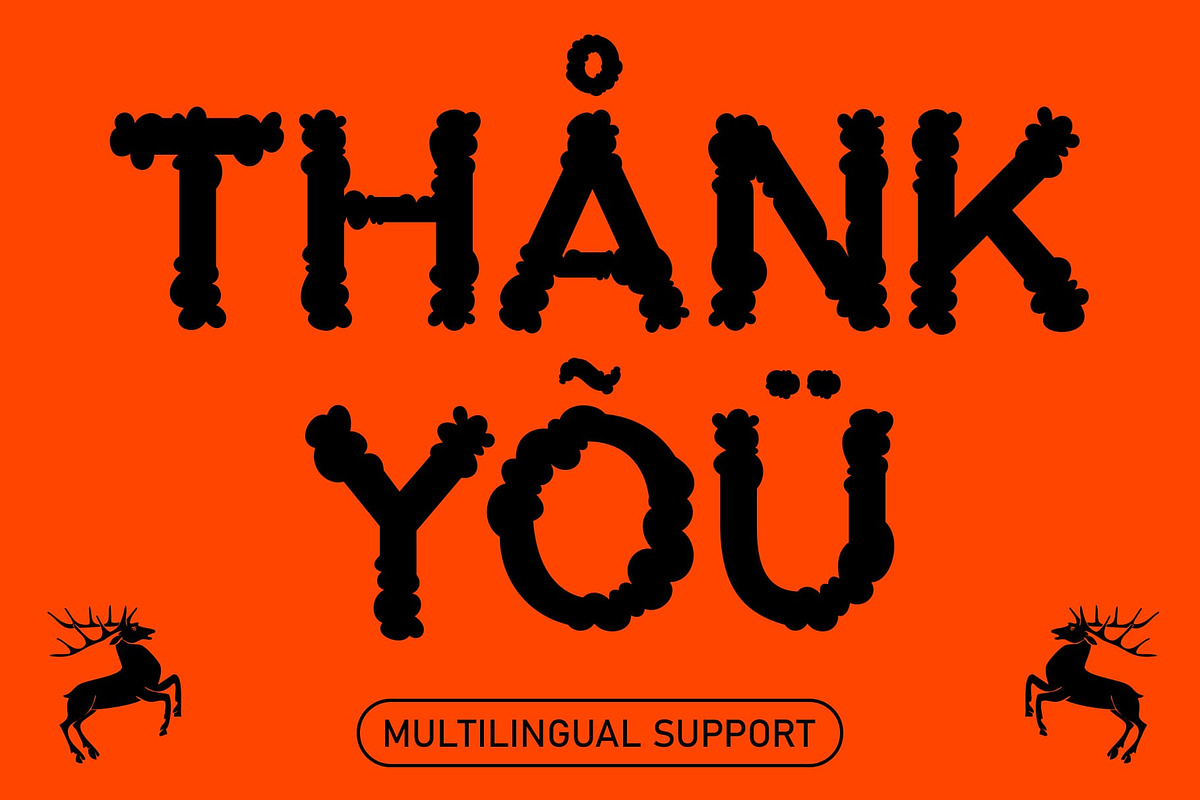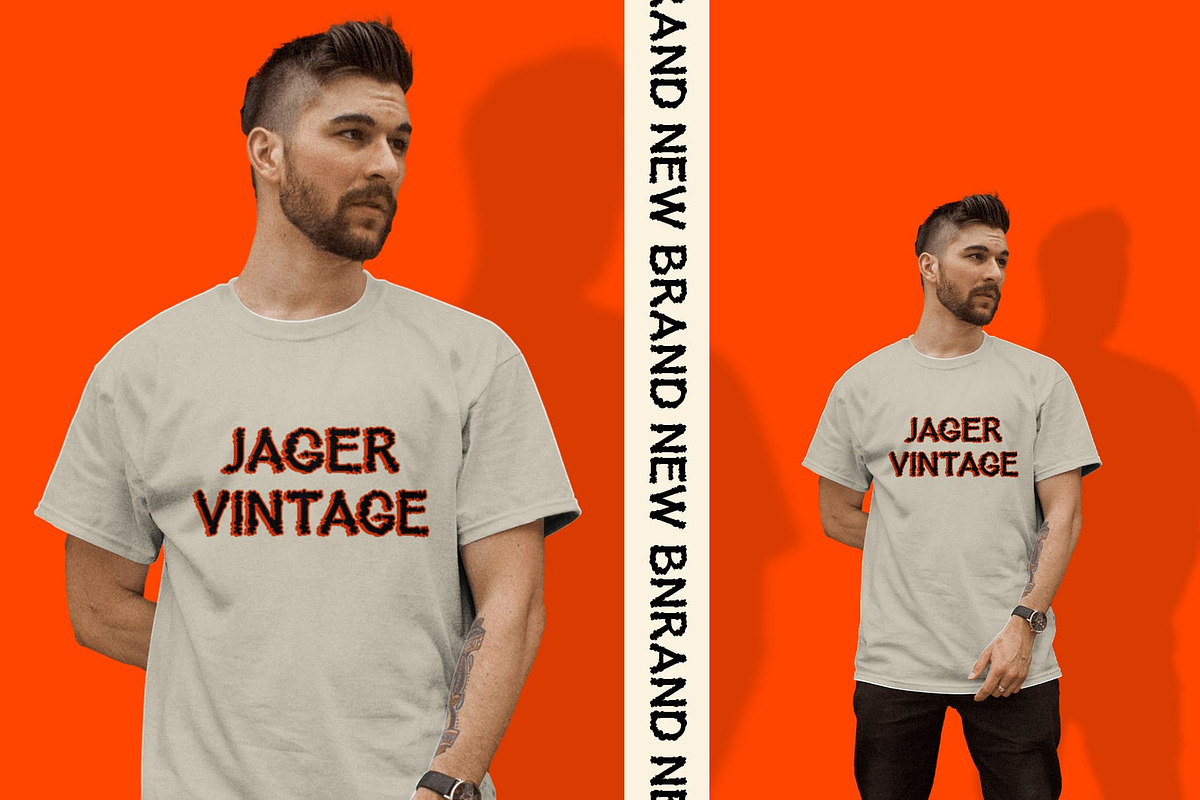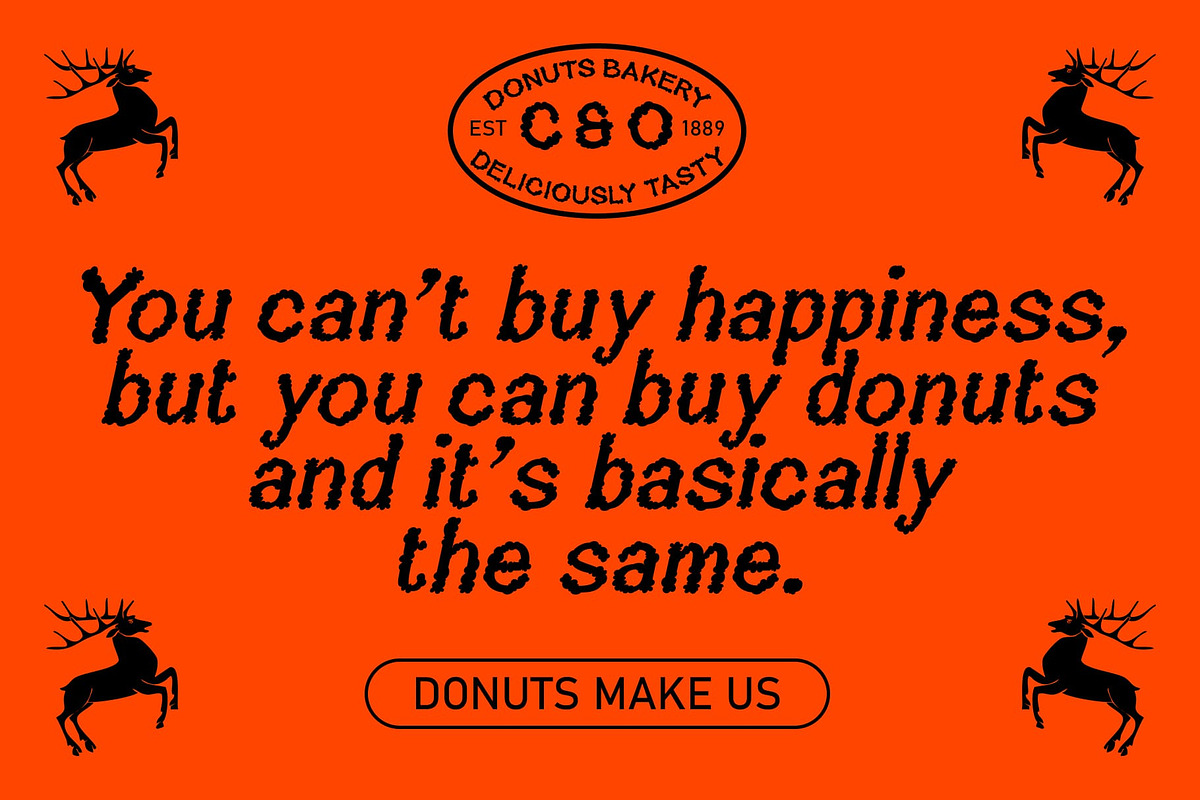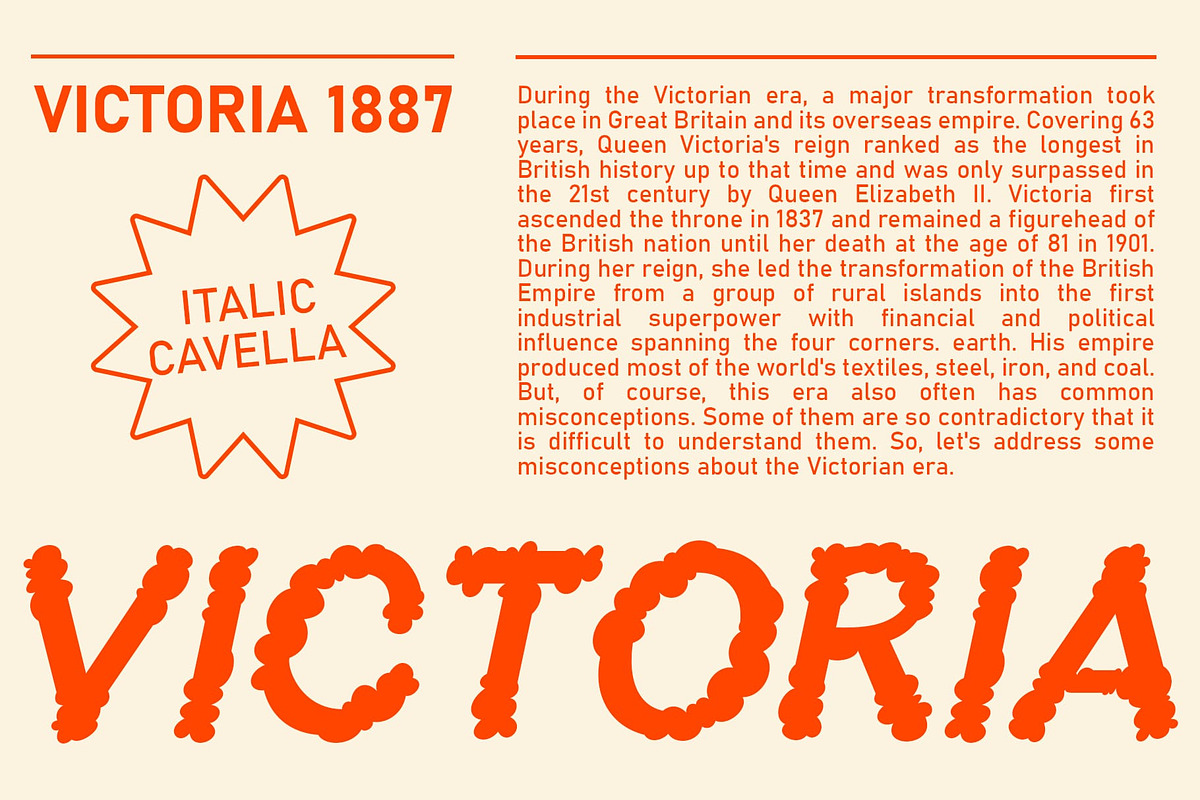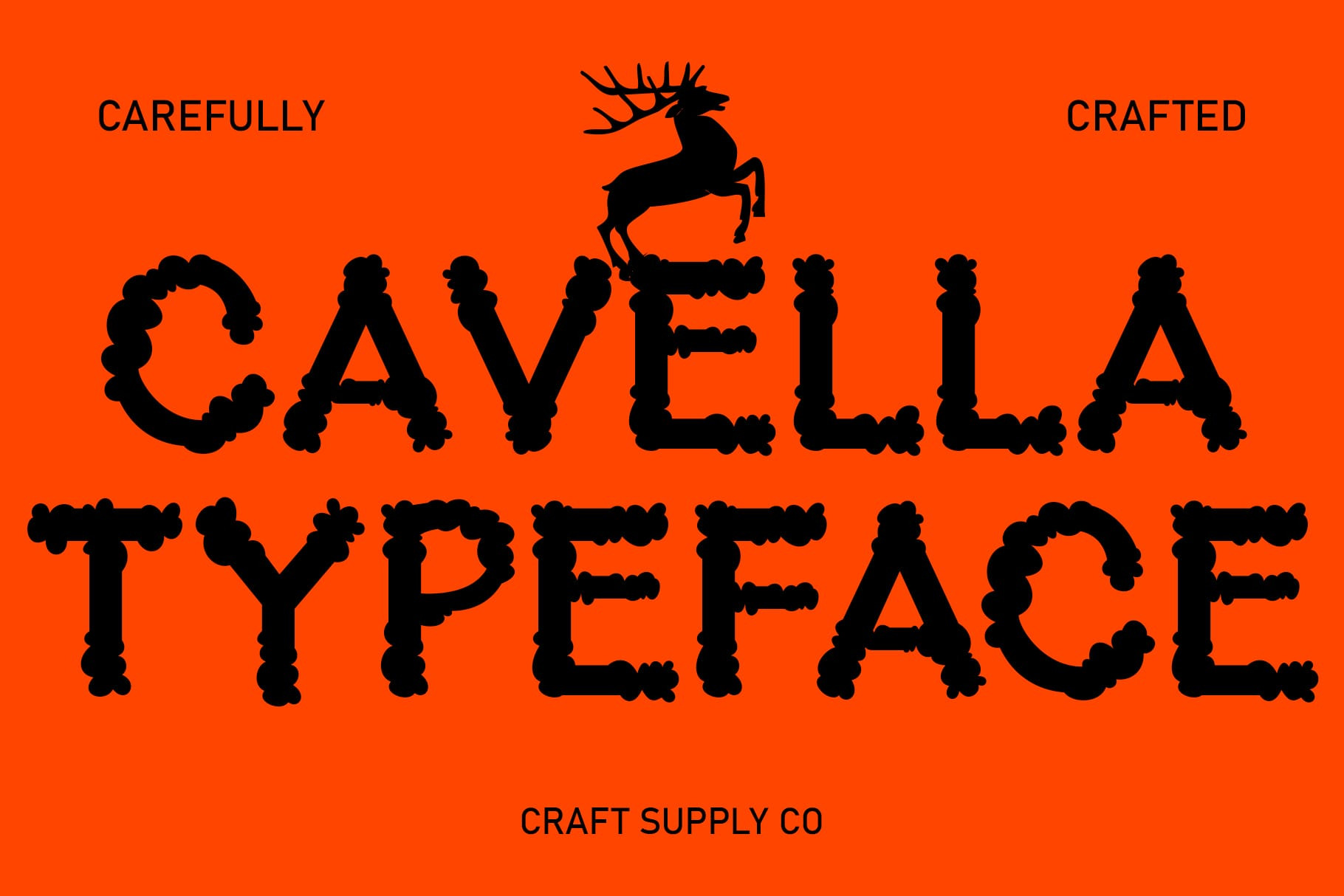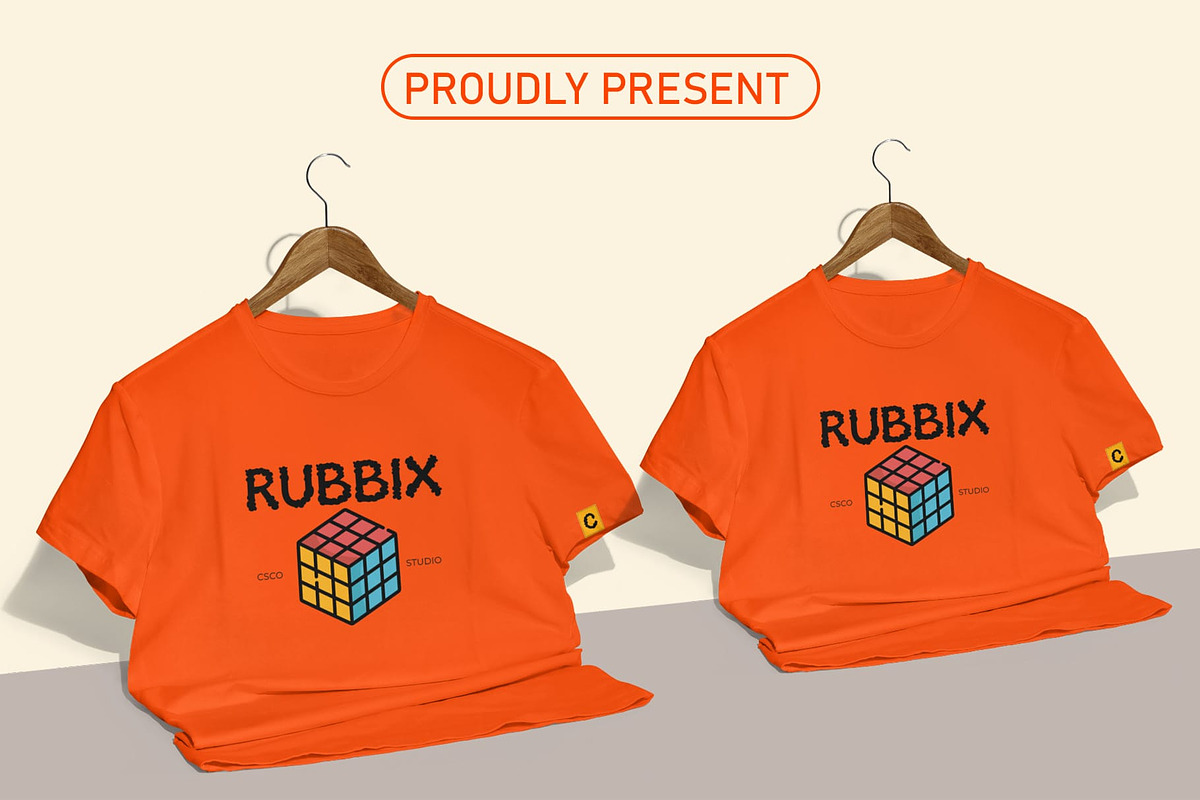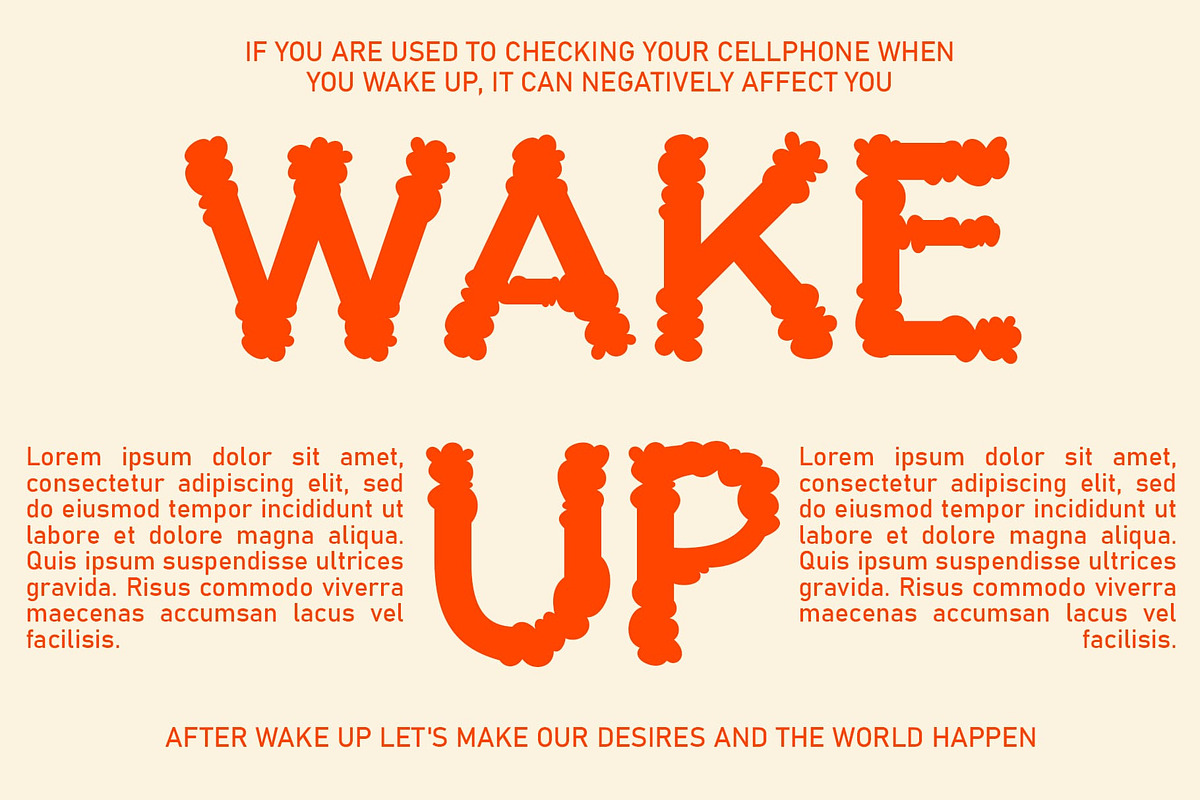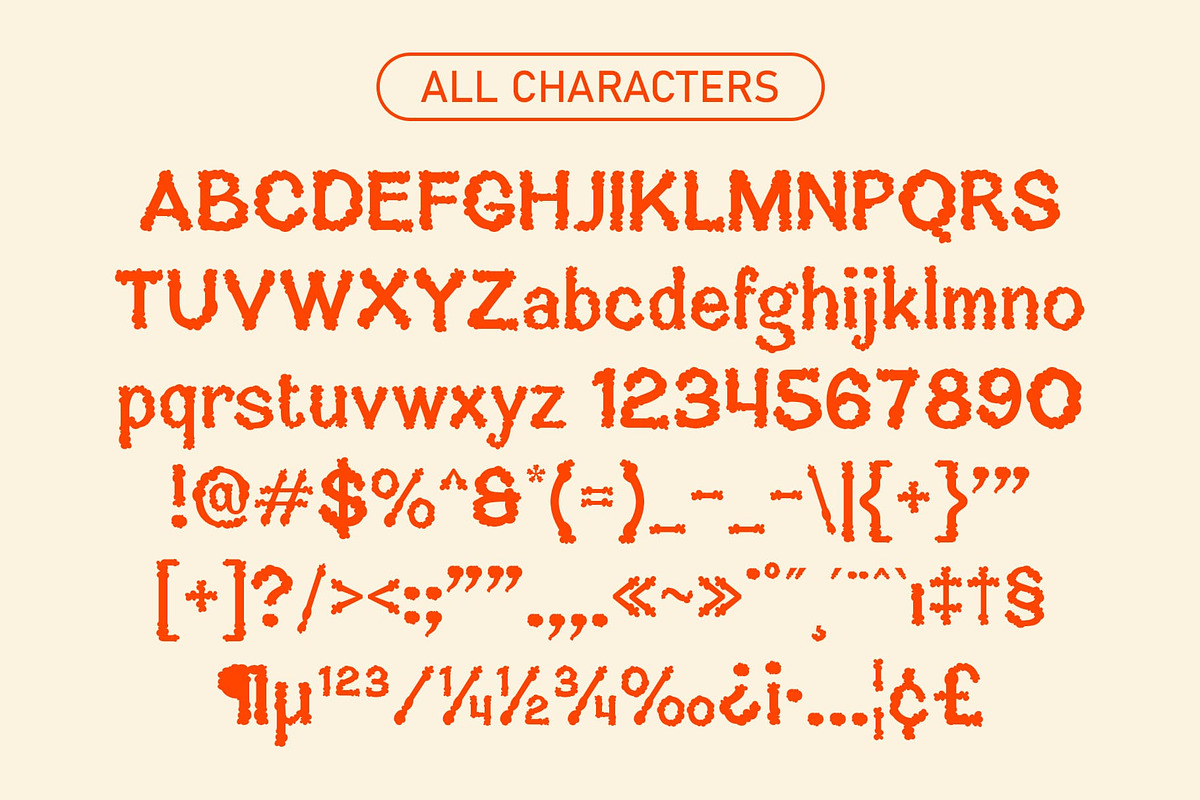
Cavella – Display Font
Cavella Font: A Smoky Twist in Display Typography
Sleek Design with Low Contrast Cavella presents a sleek display font characterized by its low-contrast strokes. The font exudes a modern aesthetic, perfect for contemporary design projects seeking a minimalist touch display.
Subtle Smoke Effects Adding intrigue to its design, Cavella incorporates subtle smoke effects into select strokes. Inspired by the wisps of smoke from cigarettes, these subtle accents bring a unique and captivating element to the font.
Inspired by Cigarettes Drawing inspiration from the world of cigarettes, This font captures the essence of smoke in its design. The font’s subtle nuances pay homage to the visual language associated with smoking, offering a distinctive and thought-provoking typographic solution.
Ideal for Bold Statements This font is an ideal choice for projects that require bold statements with a touch of intrigue. Whether used in branding, advertising, or editorial design, its smoky accents add depth and character to any visual composition.
Summary: Cavella – Where Smoke Meets Typography This font stands as a unique fusion of sleek design and subtle smoke effects, offering a fresh take on display typography. With its low-contrast strokes and smoky accents, it brings a touch of intrigue and sophistication to any design project, making it a versatile and captivating choice for designers seeking to make a bold statement.
- Cavella Regular
- Cavella Italic